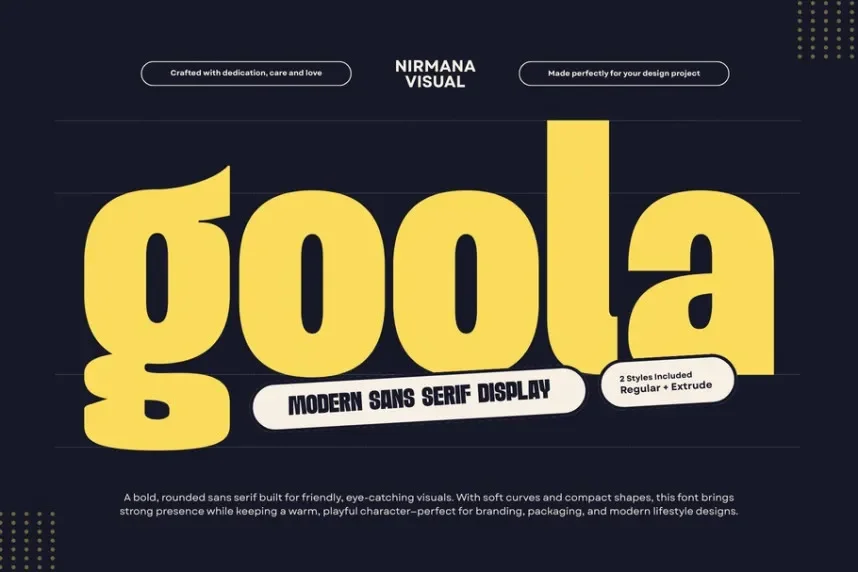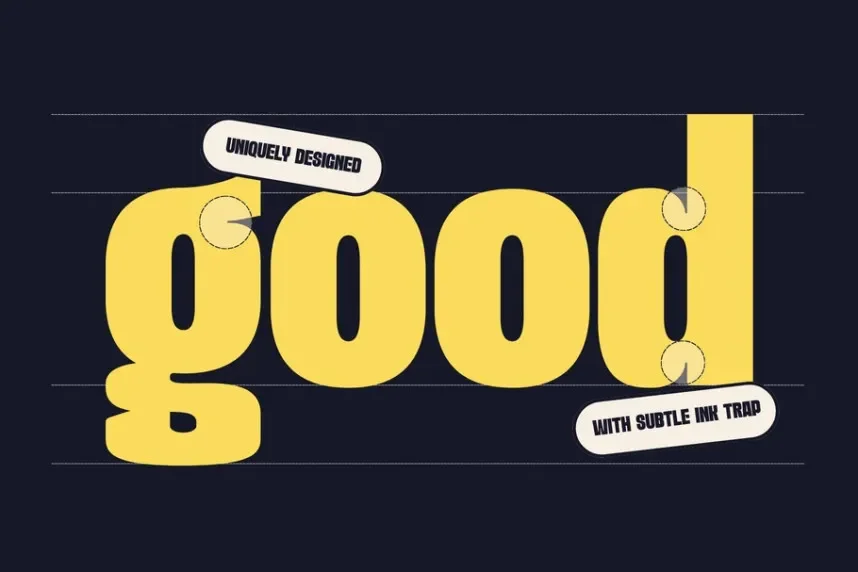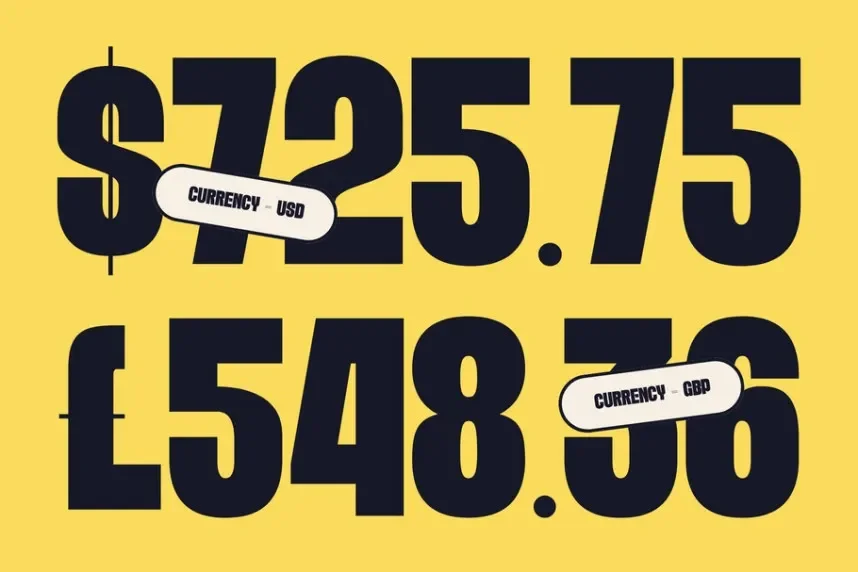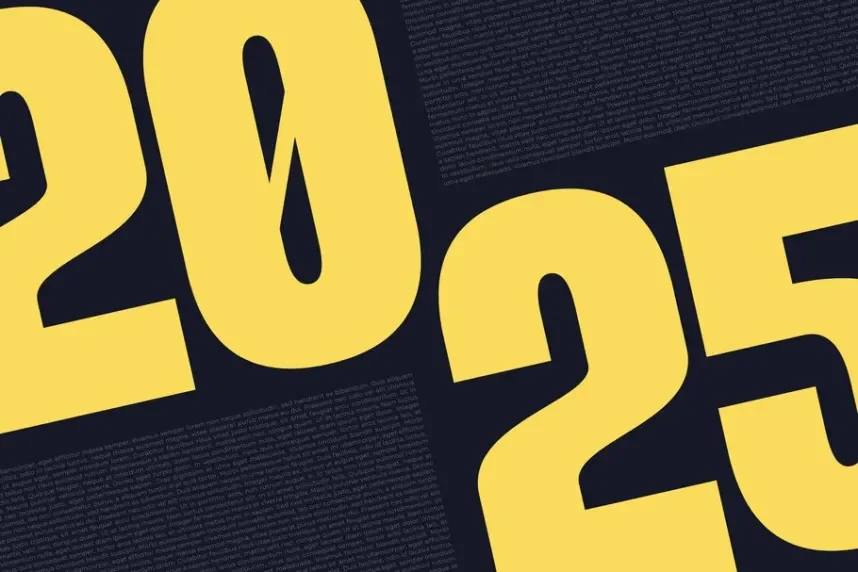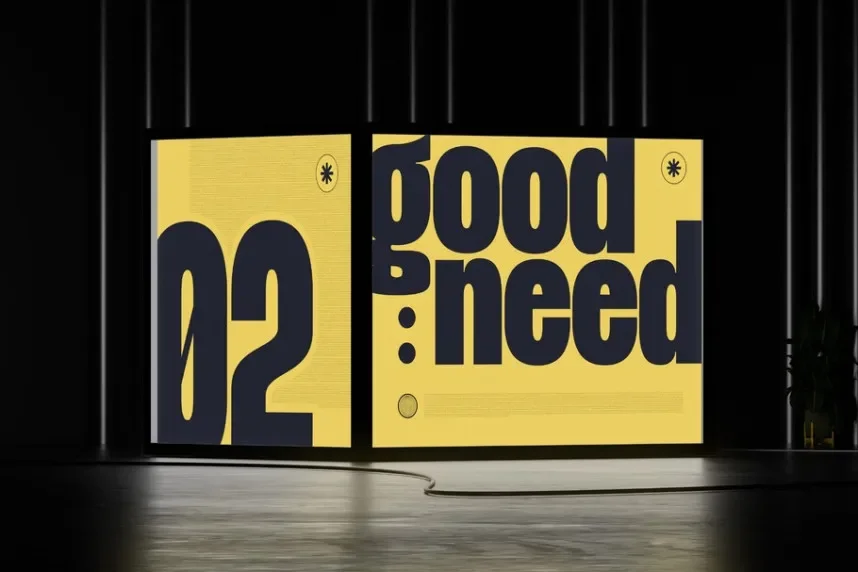
Goola Modern Font solves readability problems in digital layouts where overly stylized fonts reduce clarity. Web and UI projects require clean letterforms that scale well across devices.
Goola Modern is a sans-serif typeface with geometric structure, low stroke contrast, and open counters. The letterforms remain consistent across weights, supporting hierarchy in UI and branding systems.